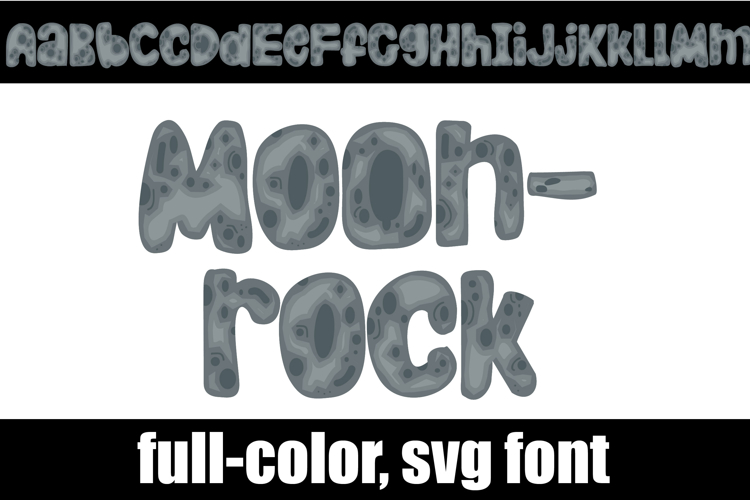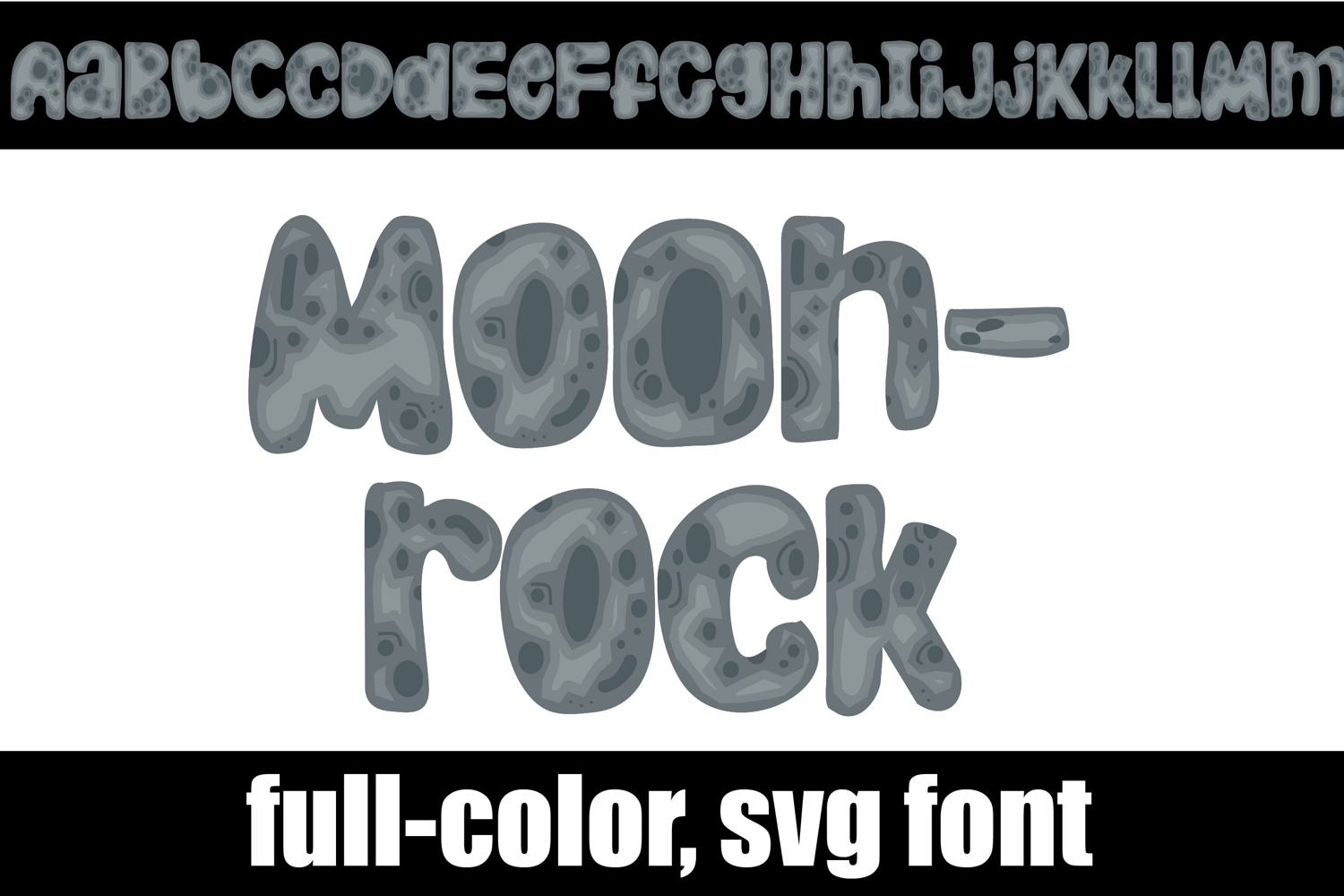
Moonrock Color Font
This full-color font features letters that look like they are made from moonrock. There is an alt case of each letter with a different color combination.